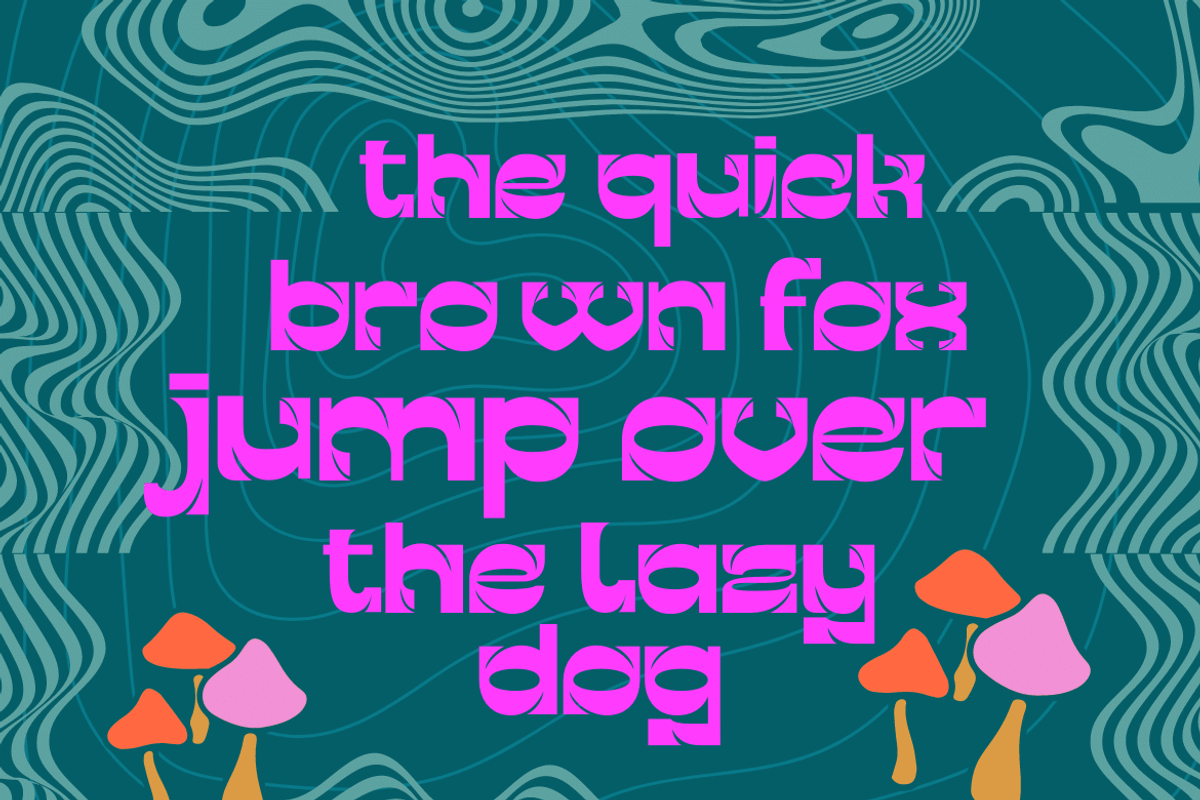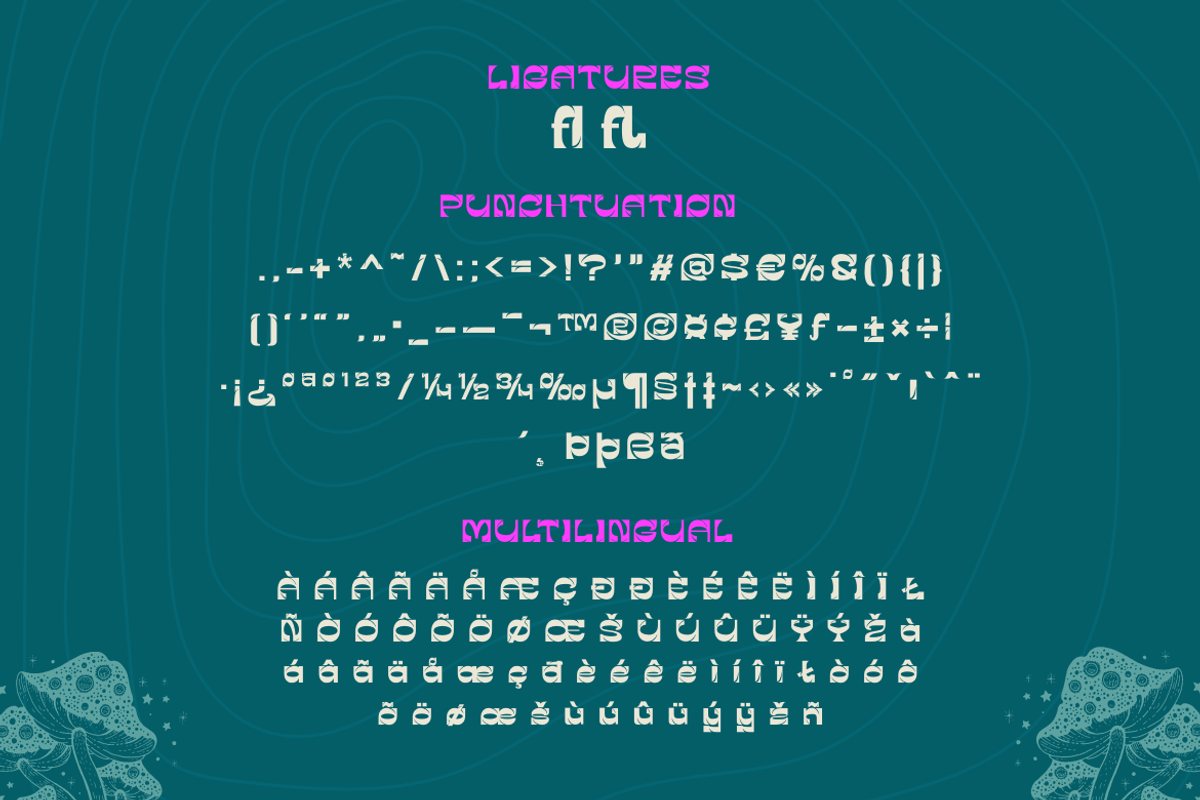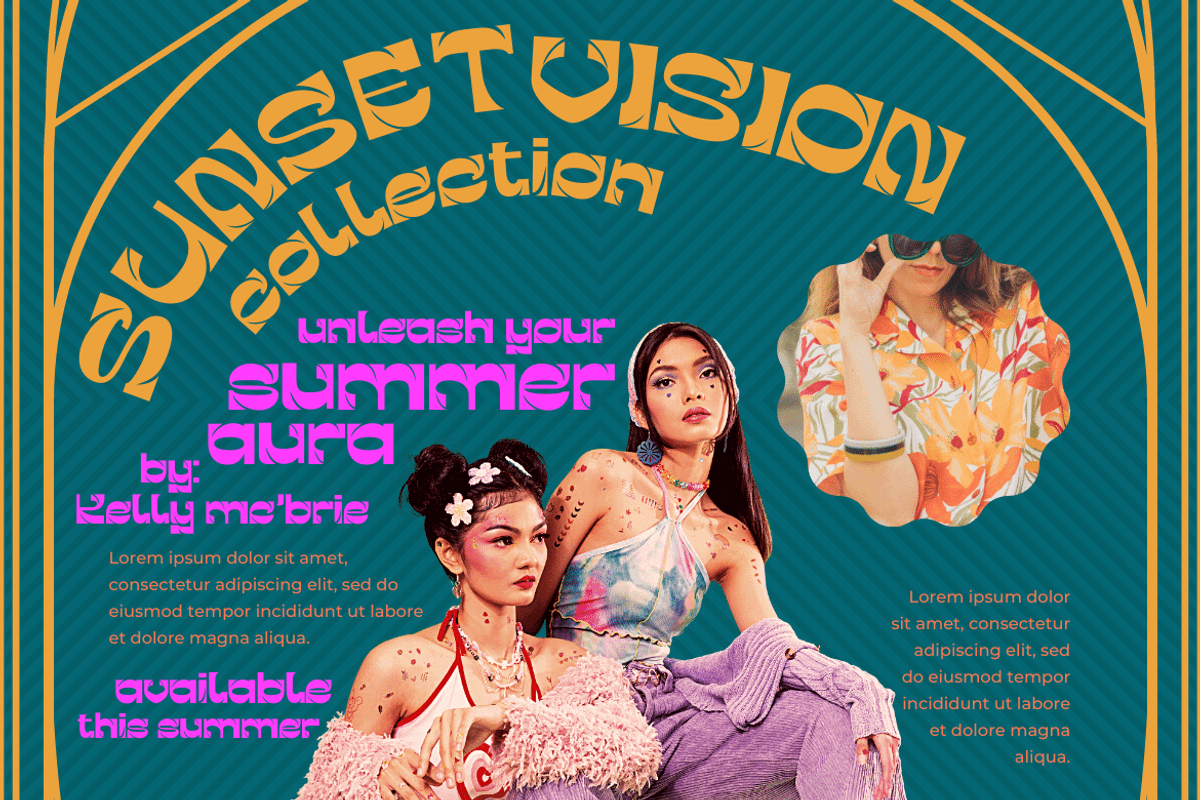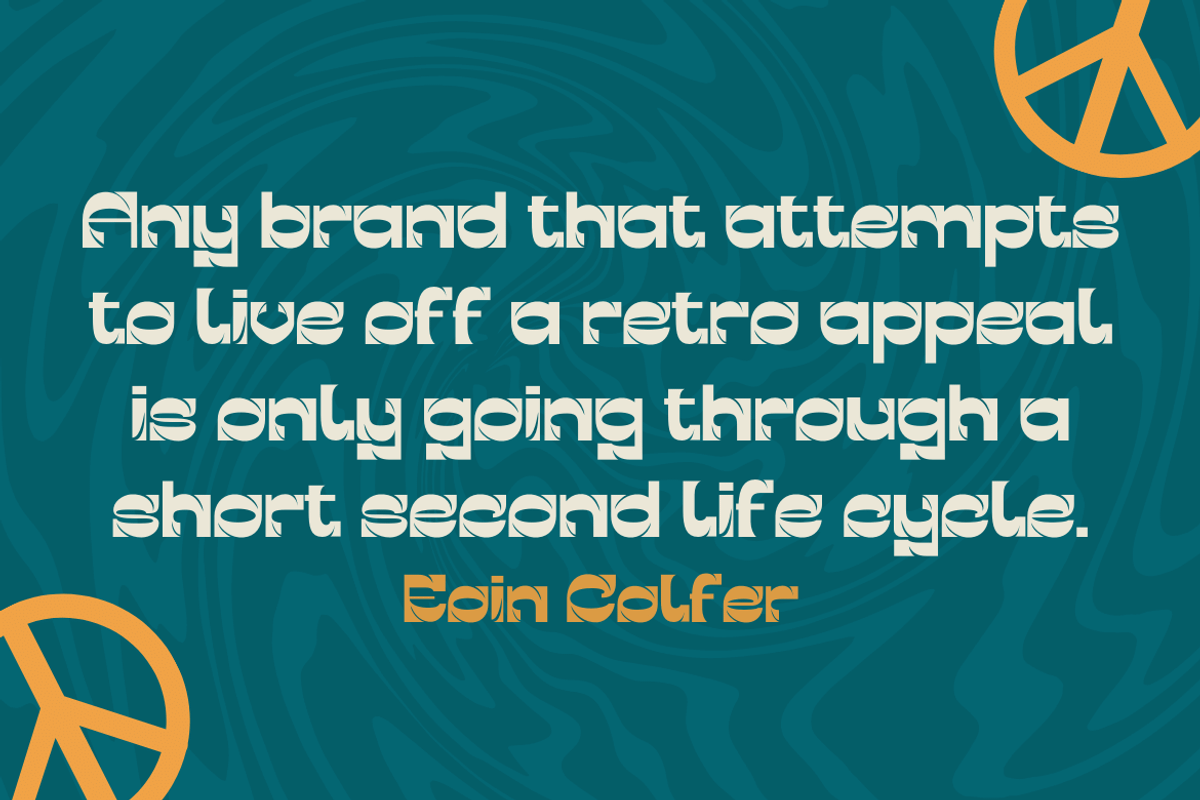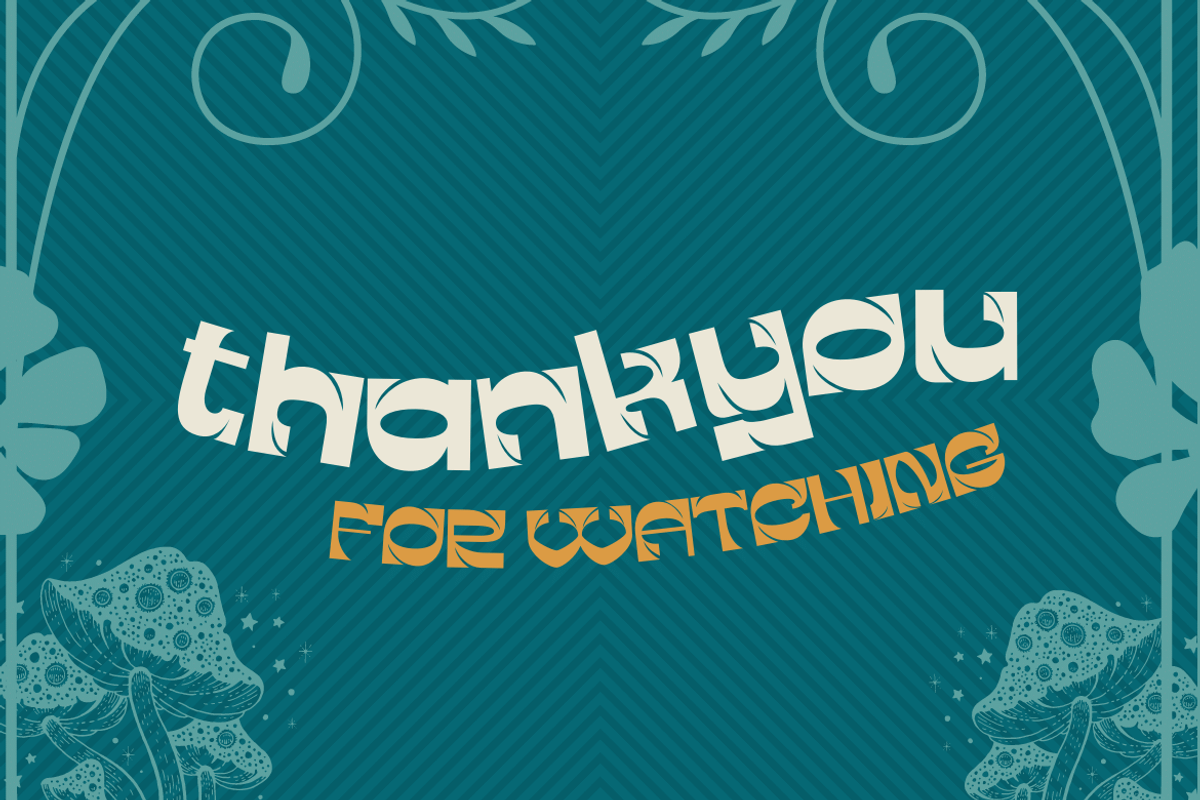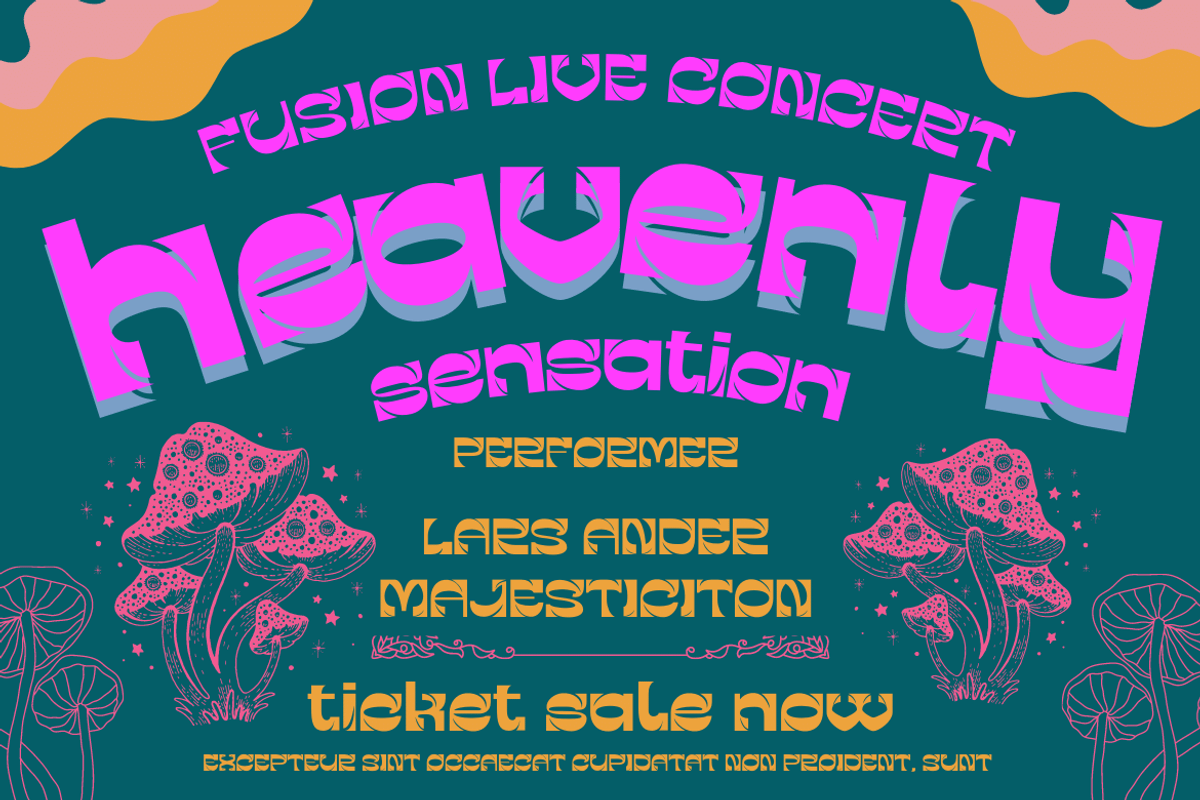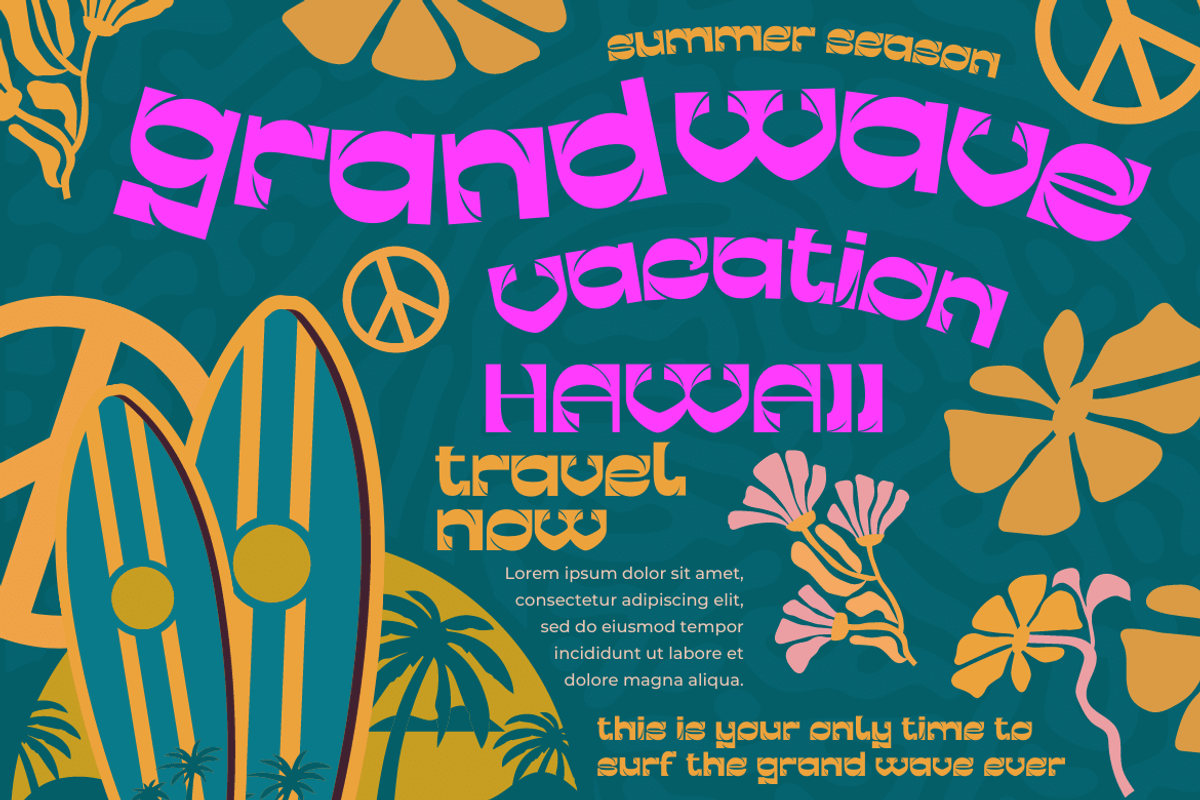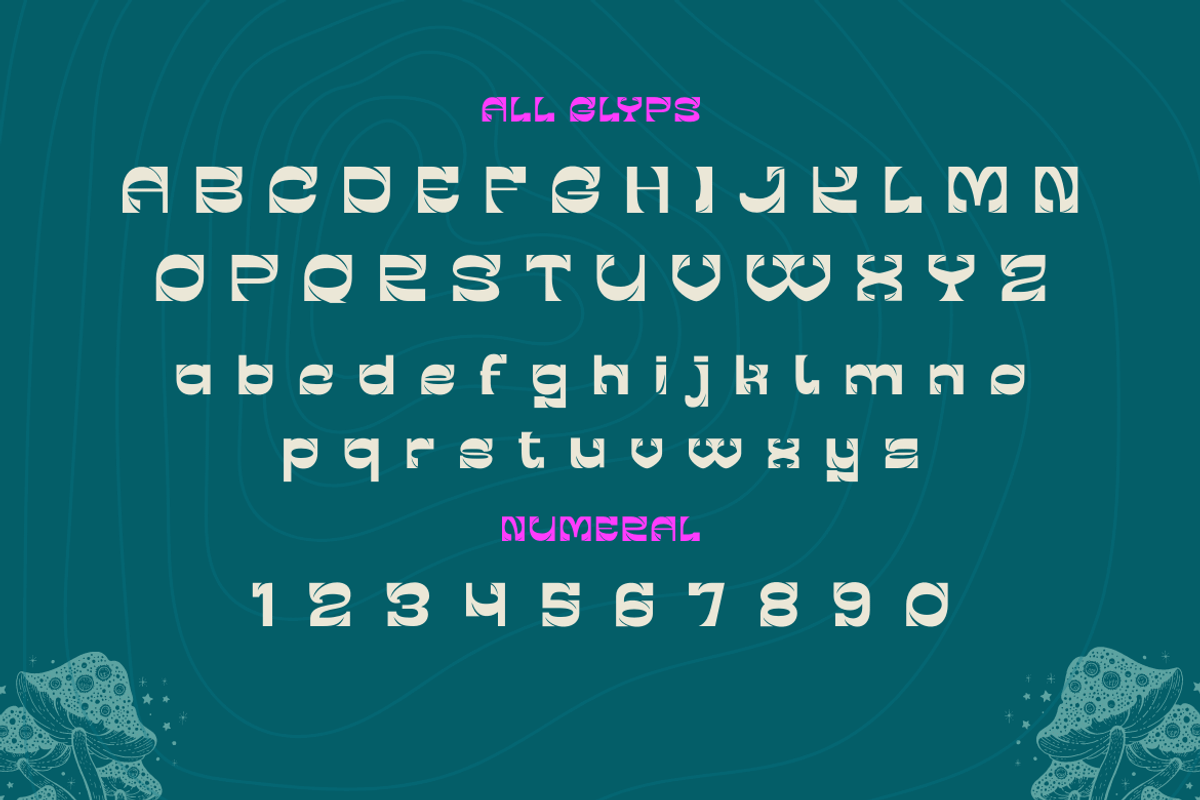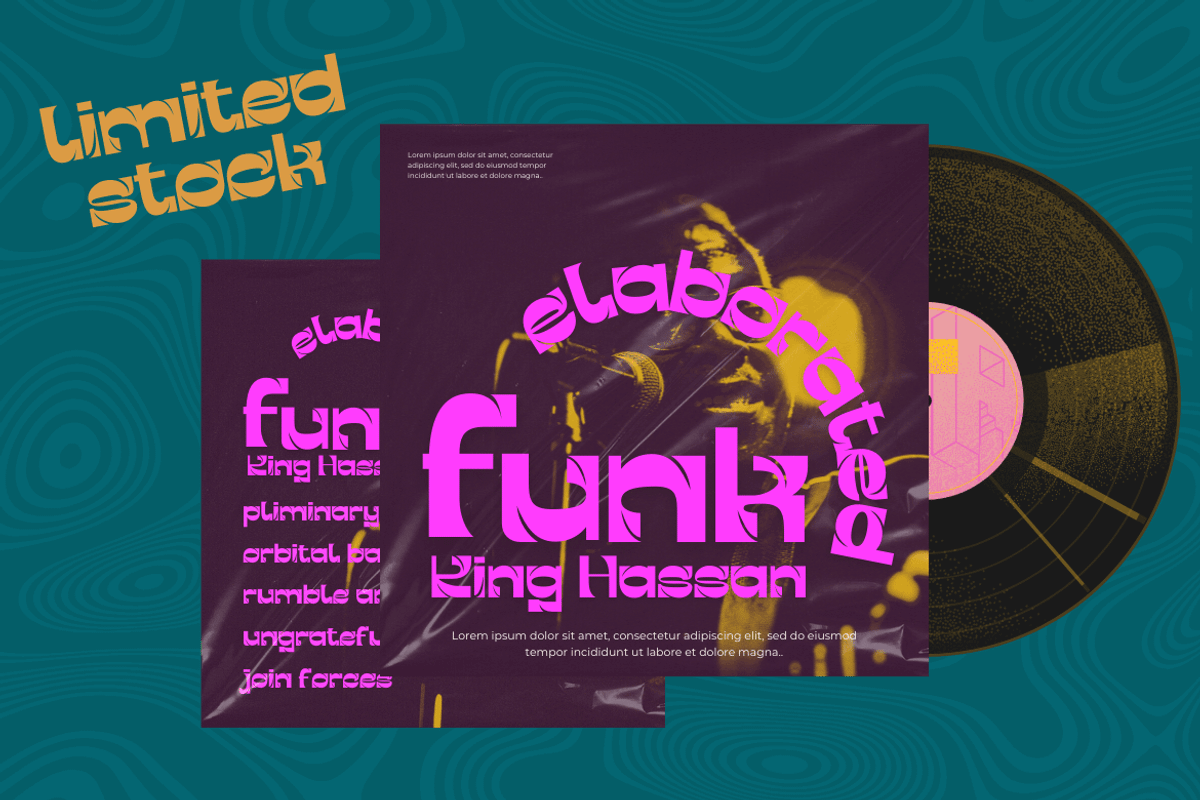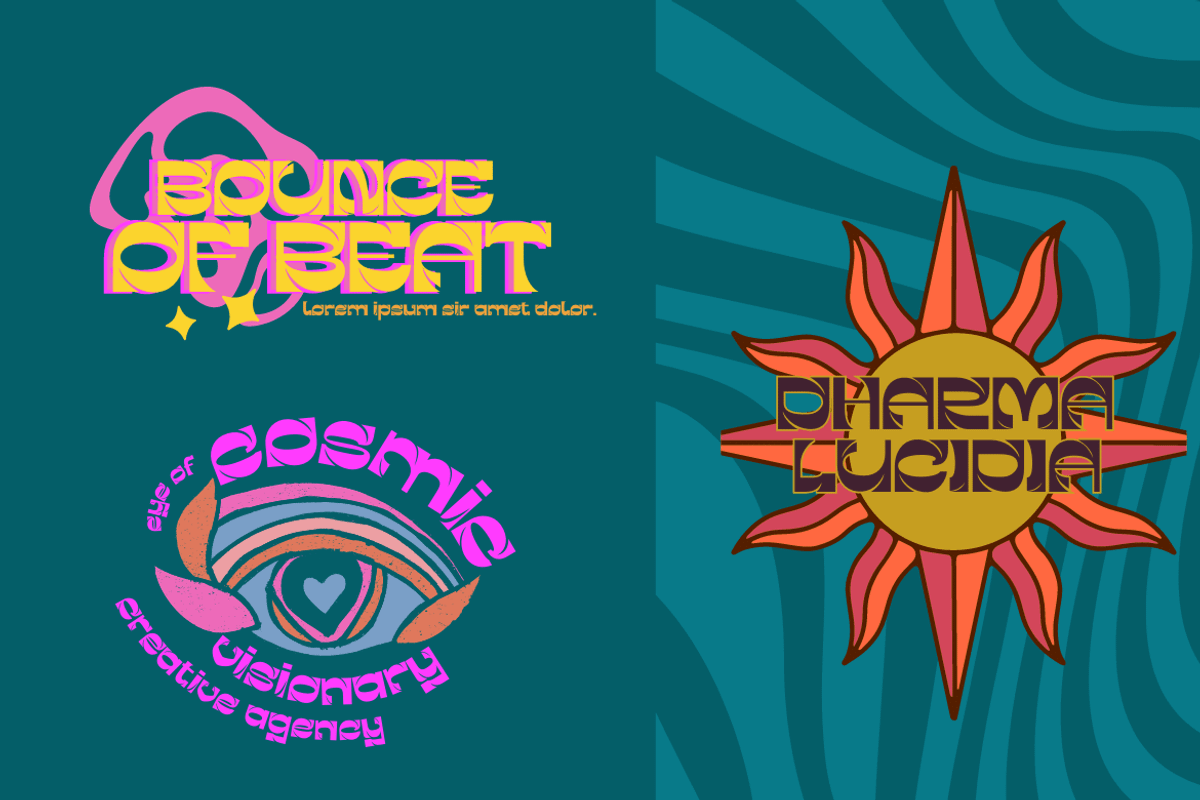
GERAKENT | Groovy Retro Font
Introducing our newest font Gerakent. What a fun font that brings a little sunshine to your day! Bring your next project to life with this retro-inspired typeface and create elegant typography that gives it a retro or vintage feel. You can use it for branding, product packaging, or even editorial work. It’s easy to use in any design program or even as a pre-cut vector and works best as text but you can also mix it with other fonts for added flair!